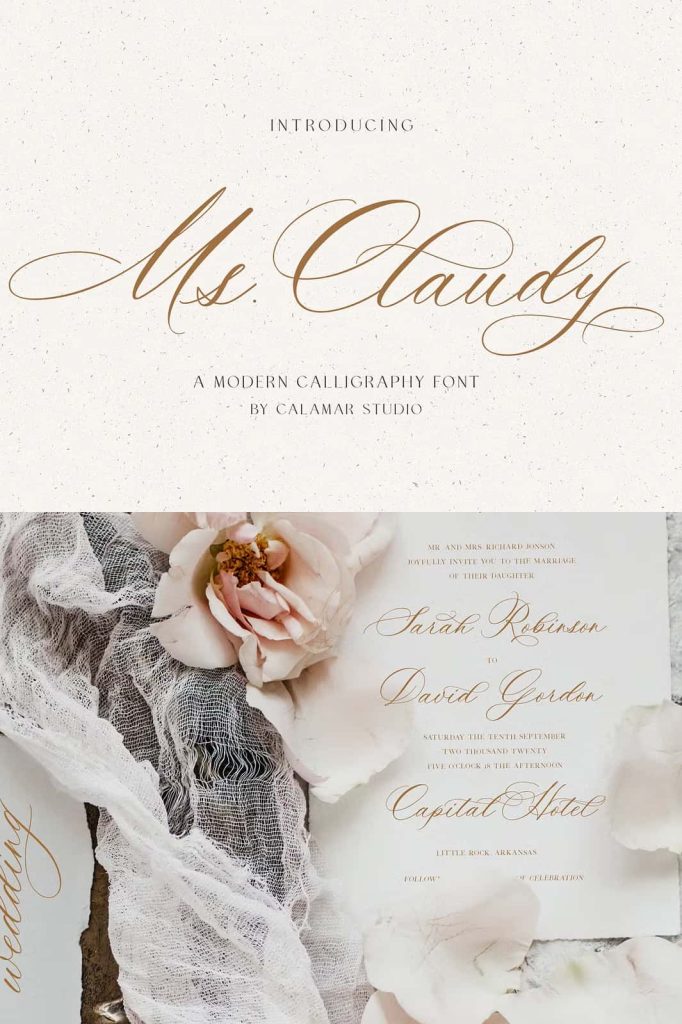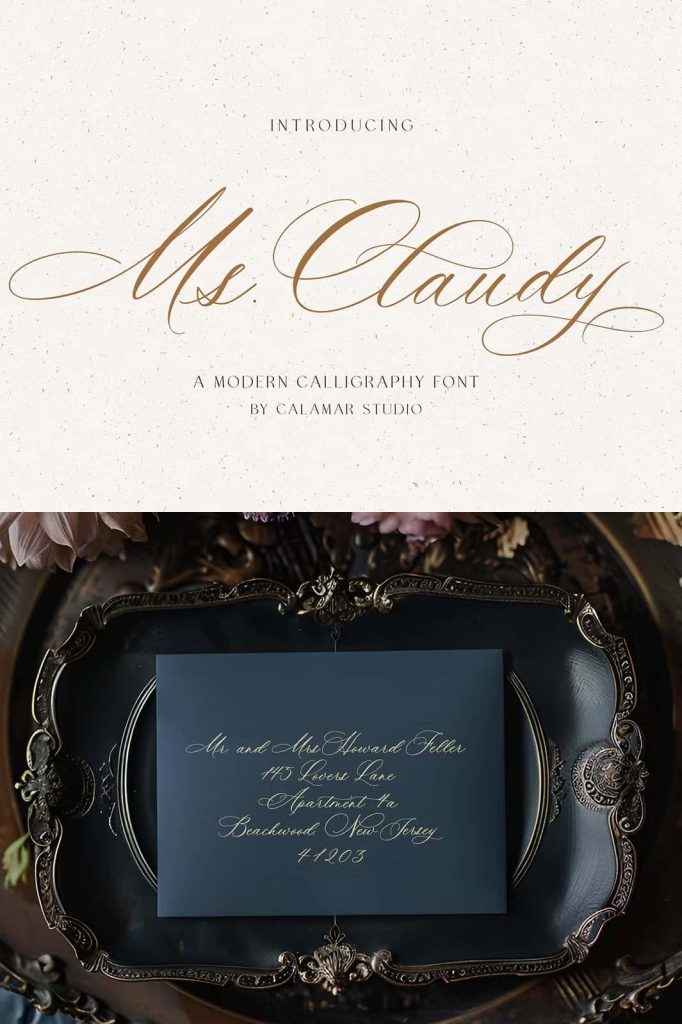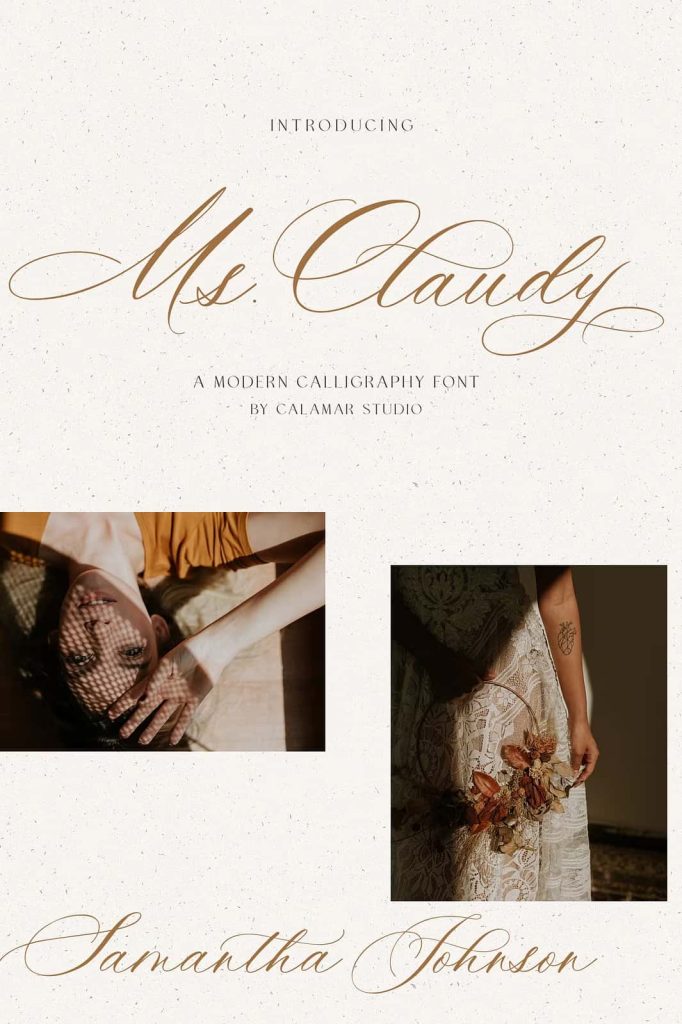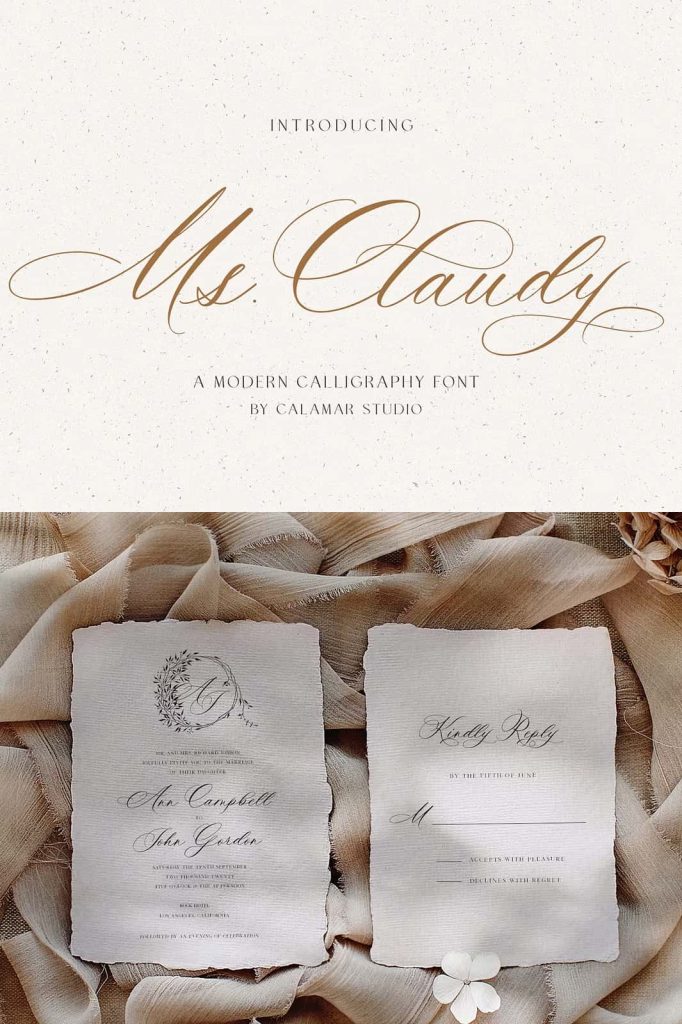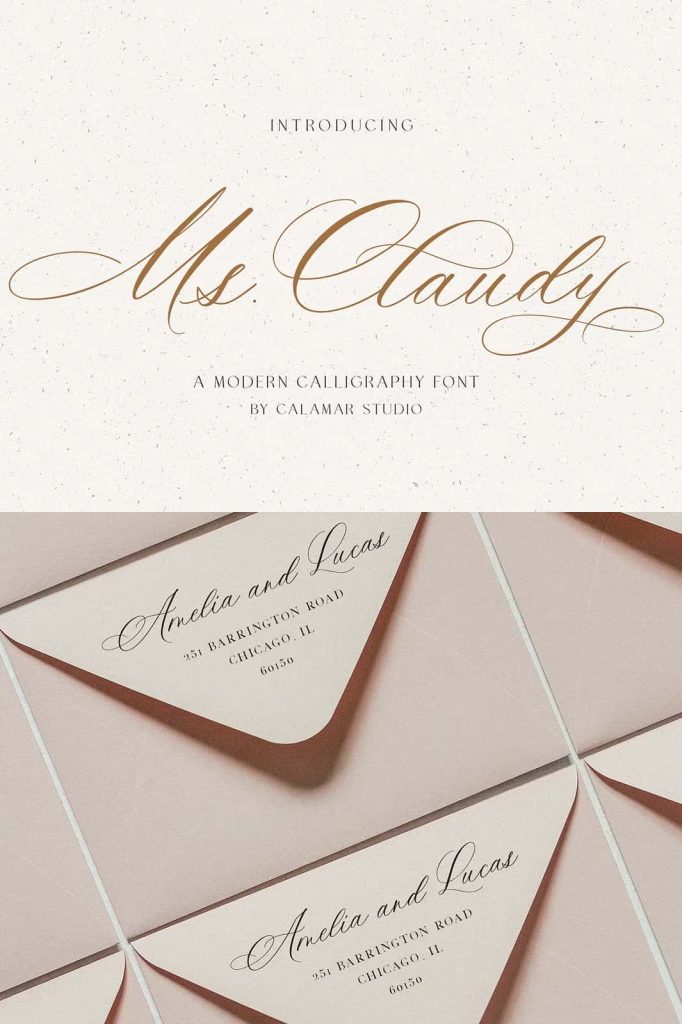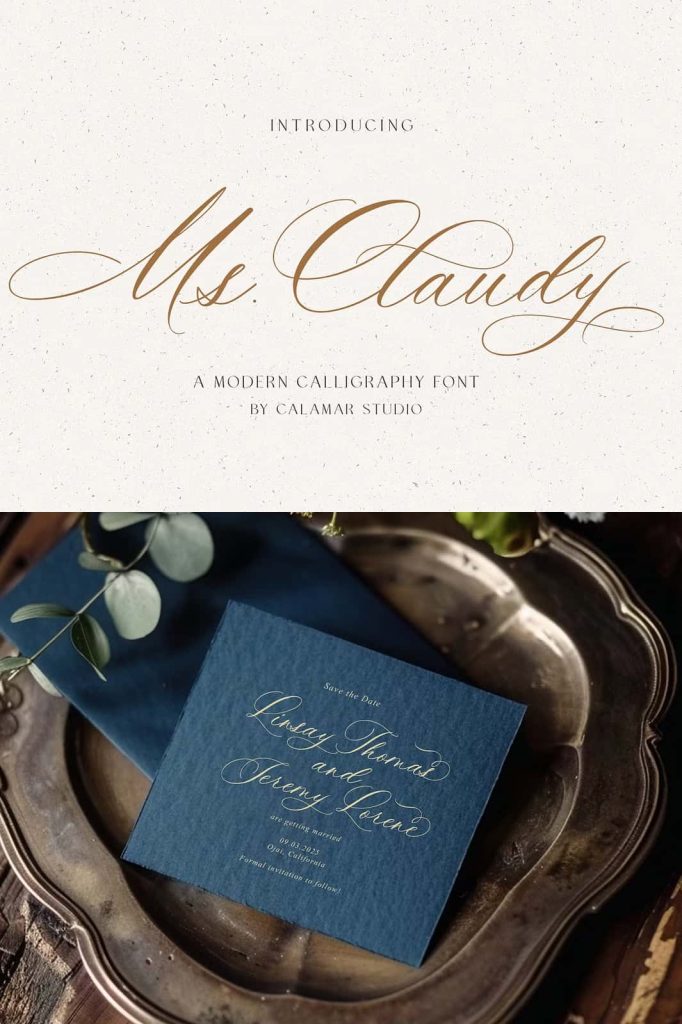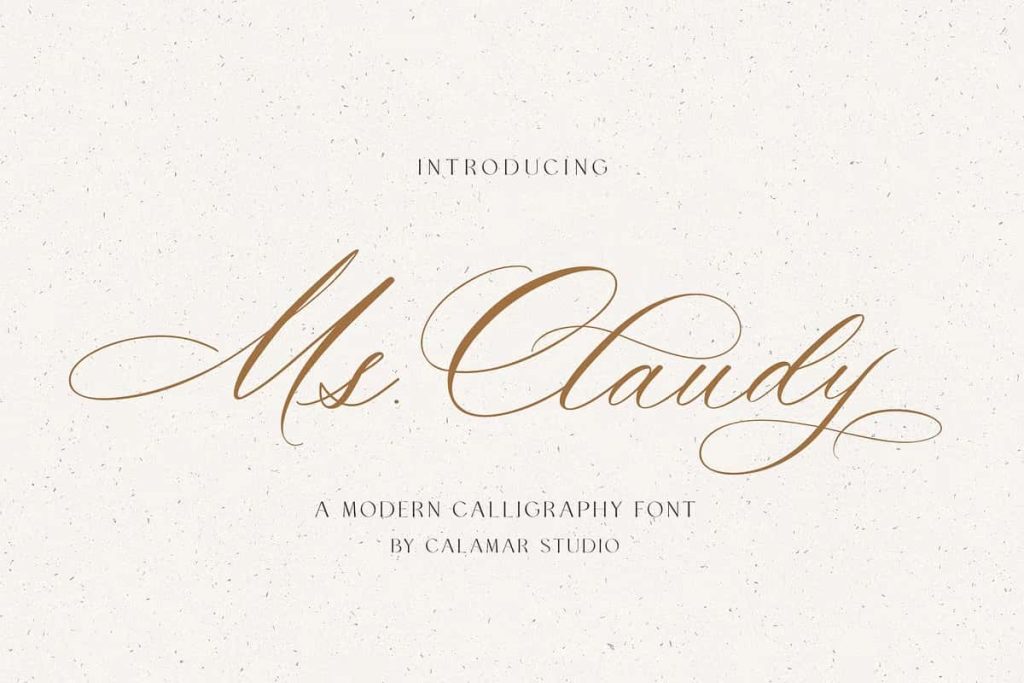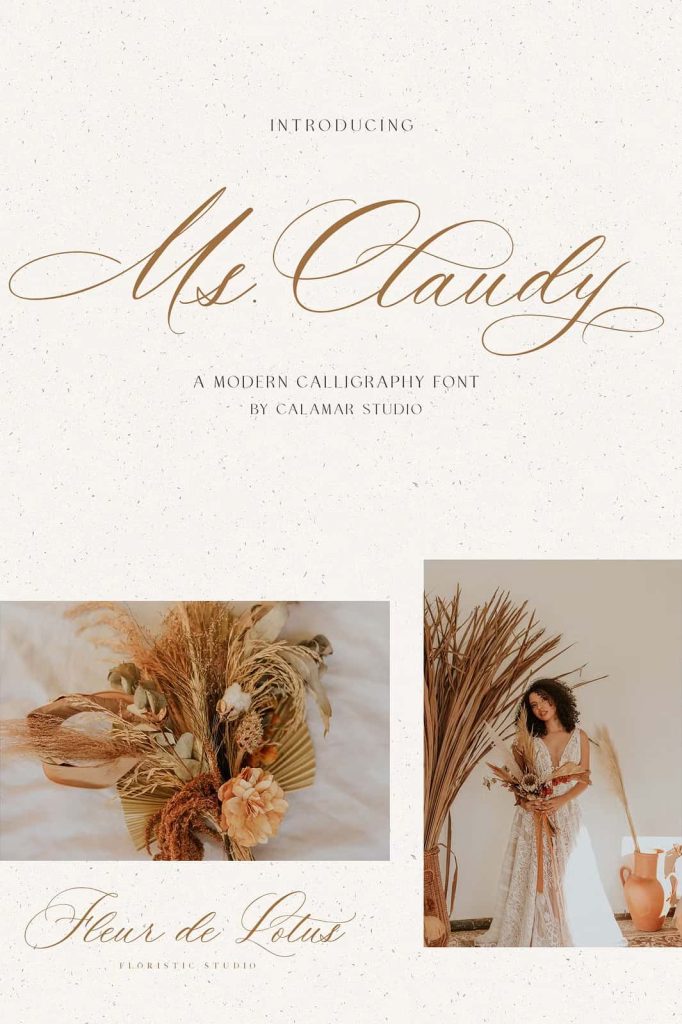
Ms. Claudy Font – A Modern Calligraphy Typeface for Elegant and Feminine Designs
Ms. Claudy Font is a modern calligraphy typeface that radiates beauty, grace, and sophistication. Designed for those who seek a stylish and elegant touch in their creative projects, Ms. Claudy offers a perfect balance between fluid handwritten strokes and refined letterforms. Its romantic, contemporary style makes it a stunning choice for wedding invitations, save-the-date cards, personal stationery, and feminine branding. With every curve and flourish carefully crafted, this script font transforms any design into a statement of timeless elegance.
Modern Calligraphy with a Touch of Sophistication
The Ms. Claudy Font embodies the essence of modern calligraphy — flowing, expressive, and gracefully balanced. Each letter is designed with meticulous attention to detail, resulting in a script that feels both luxurious and approachable. The smooth, sweeping curves reflect the fluidity of traditional penmanship while maintaining a contemporary edge. This blend of classic and modern design allows Ms. Claudy to fit seamlessly across a wide range of creative applications.
Its natural rhythm and organic structure give it an effortless charm. The font’s design captures the spontaneous beauty of handwriting while ensuring precision and readability. Whether used for headlines or elegant text passages, Ms. Claudy maintains its visual harmony and sophistication in every setting.
Perfect for Weddings, Branding, and Elegant Designs
Ms. Claudy is the ideal font for designers who want to add a sense of romance and refinement to their projects. It’s particularly suited for wedding invitations, save-the-date cards, place cards, and event signage. The graceful letterforms and stylish flourishes evoke emotions of love, warmth, and celebration, making it a perfect choice for once-in-a-lifetime occasions.
Beyond weddings, Ms. Claudy excels in feminine branding and lifestyle projects. Whether you’re designing a beauty logo, boutique brand, fashion blog, or luxury product label, this script typeface conveys confidence and sophistication. Its elegant flow enhances visual storytelling and establishes a strong, memorable identity.
Key Features of Ms. Claudy Font
- Modern Calligraphy Style – Inspired by handwritten elegance with a contemporary aesthetic.
- Graceful Letterforms – Beautifully flowing lines and stylish curves for timeless appeal.
- Perfect for Weddings and Events – Ideal for invitations, save-the-date cards, and event materials.
- Feminine Branding – Adds sophistication and charm to fashion, lifestyle, and beauty designs.
- Versatile Use – Suitable for digital and print projects, including logos, quotes, and packaging.
Bring Beauty and Emotion to Every Design
The Ms. Claudy Font is more than just a typeface — it’s an artistic expression that breathes life into your words. Its soft curves and elegant structure make it easy to pair with both serif and sans-serif fonts, enhancing your layout while keeping it visually balanced. Whether you’re creating delicate stationery or a luxurious brand identity, Ms. Claudy adds personality and emotion to your typography.
This typeface captures the essence of feminine strength and grace. It’s perfect for conveying sophistication, sincerity, and beauty in your design work. With its carefully crafted ligatures and alternate characters, Ms. Claudy allows for endless creative possibilities, helping you achieve that perfect handwritten aesthetic without sacrificing readability.